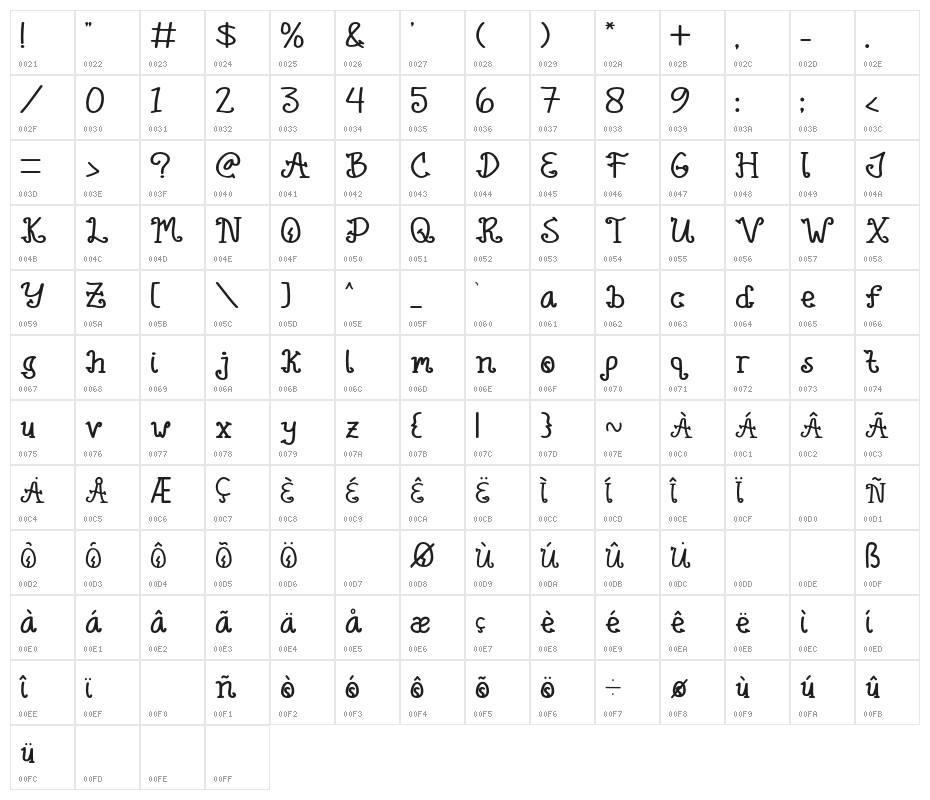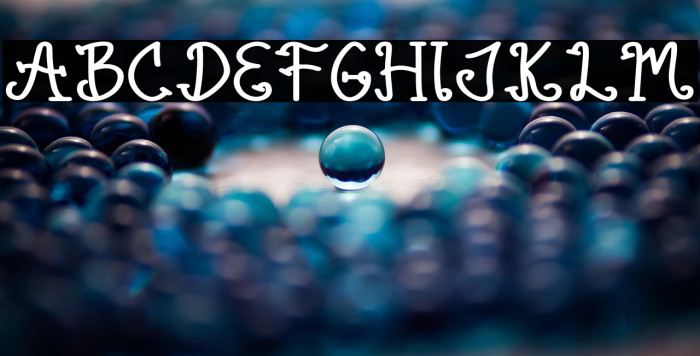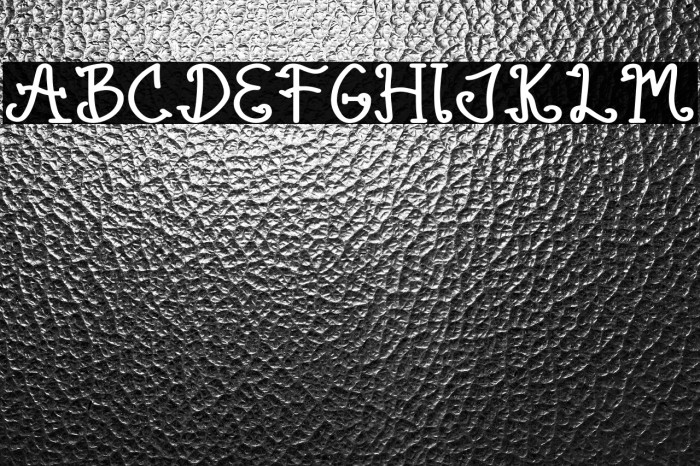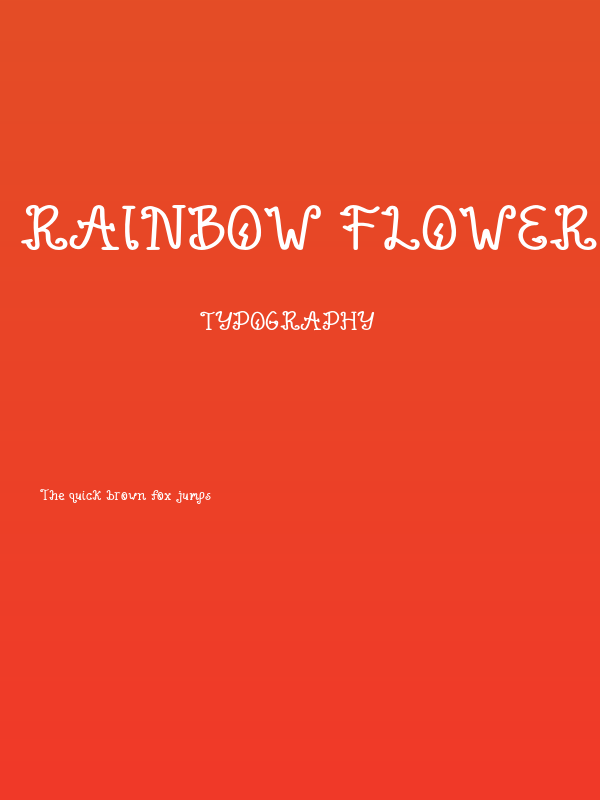
Rainbow Flower Font
Rainbow Flower Description
This font features a playful and whimsical design, characterized by its curly and decorative serifs. The letters have a hand-drawn quality, with uneven strokes that add to its charm. The uppercase letters are bold and prominent, while the lowercase letters maintain a consistent style with slightly exaggerated curves. Numbers and special characters follow the same playful theme, making it suitable for creative and informal projects. The overall appearance is lively and engaging, perfect for capturing attention in a fun and lighthearted way.
Overall StyleWhimsical
Use CaseHeadlines, Logos, Creative projects
Proposed ProjectsIdeal for children's books, greeting cards, playful branding, and creative posters.